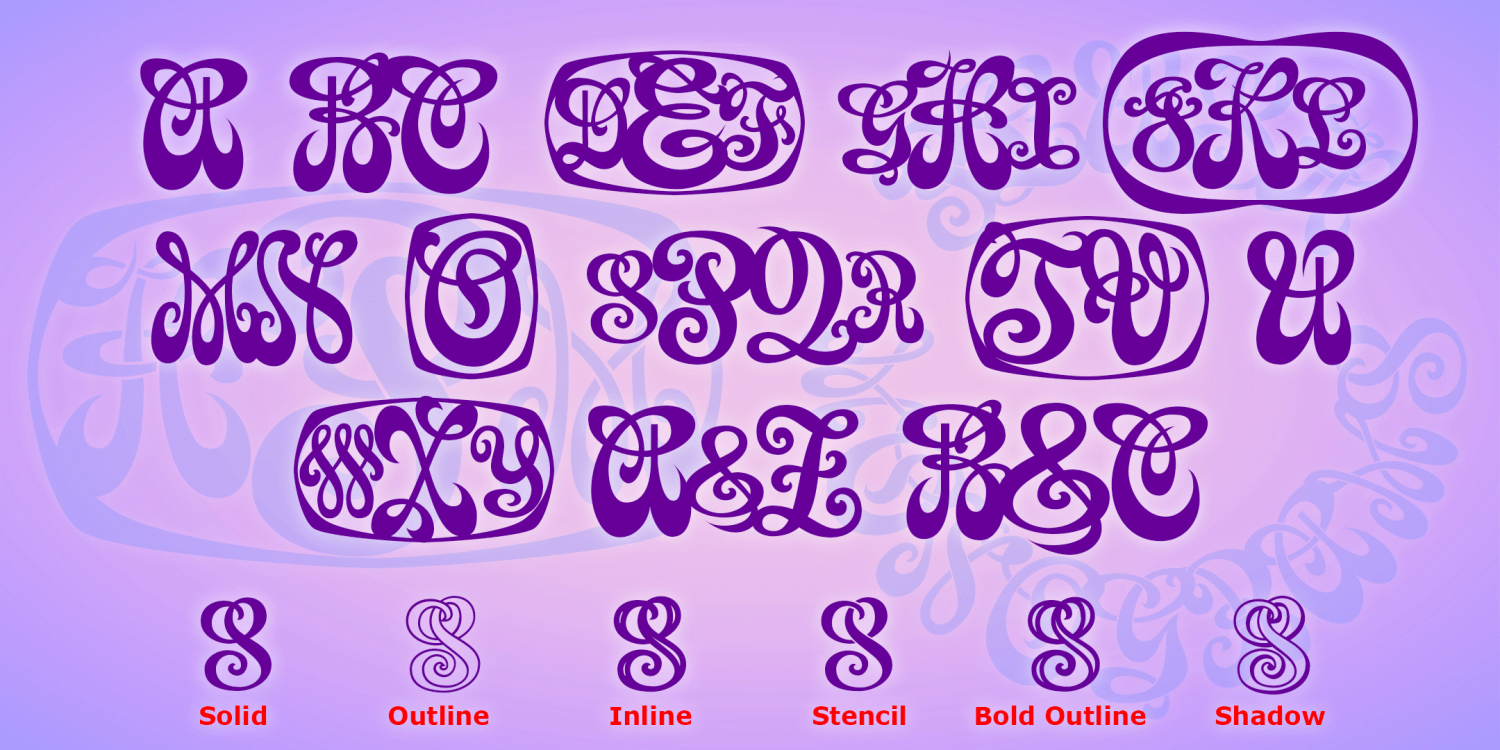
Plush Monograms
Fancy and flouncy, bold and bouncy, Plush Monograms are the choice for a unique monogram style. With roots in Art Nouveau, Plush Monograms are all curves, in six styles that you can choose to use alone or mix and match. And Plush Monograms lets you create monograms and even words of any length.
Plush Monograms Stencil
Plush Monograms Shaded
Plush Monograms Outline
Plush Monograms Solid
Plush Monograms Inline
Plush Monograms Bold Outline